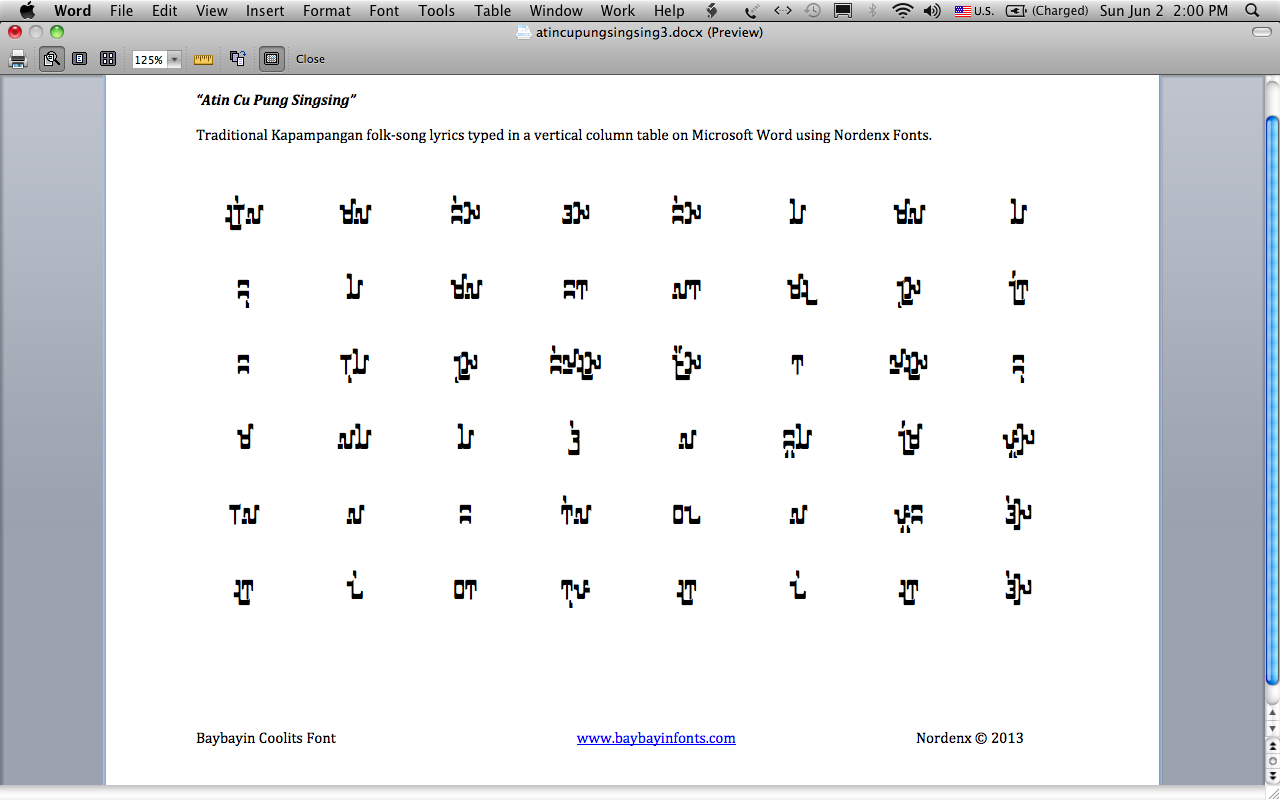
The Script:
"Baybáyin Script" is an umbrella term for the Abugida (alpha-syllabary) writing systems of the Philippines. Generally, the Sulat Tagalog version is what people think of by default when "Baybáyin" is mentioned. However, there are different varieties of the script, Kulitan is one of them.
Súlat Kapampángan (a.k.a. pámagkulit or kulitan) is used for writing the Kapampangan language spoken by folks from the Pampanga province in the Philippines. It has been kept alive within the Kapampangan Academia; this Varsity styled font is dedicated to the linguistic scholars of Pampanga.
Kulitan differs slightly from Baybayin as it has been adapted solely for Kapampangan orthography. A different method of writing garlit (kudlit) diacritic marks and character ligatures & stacking were developed. Much of the character shapes originally were the same as Baybayin but through limited but continued use, Kulitan handwriting evolved to match a vertical direction of writing popularized by Kapampangan practitioners, scholars, artists, and academics.
The Font:
I create true type fonts (TTF) I called "Baybayin Modern" for use in modern art. The fonts are stylized modern composite of many examples from the past but the style is based primarily on my calligraphy work and handwriting. The font is calligraphic & artistic representations and the characters’ shapes, sizes and weights have been made uniform in order to present a neat and elegant printed appearance.
The Style (Coolits):
A stylized small/pixel font written with a vertically oriented brush tip that resulted in wide horizontal strokes and thin vertical strokes.